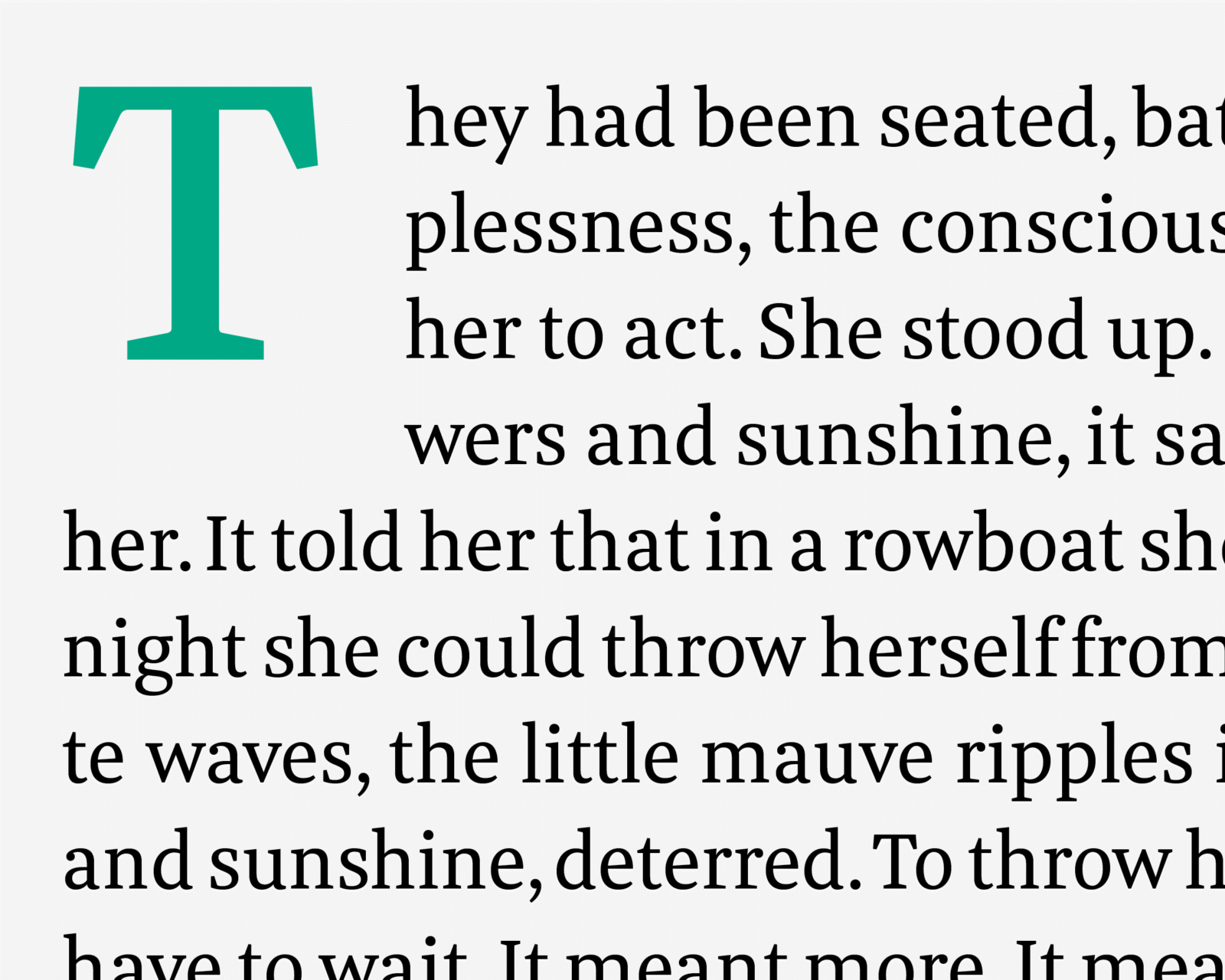
Meret
A straightforward typeface for newspapers and so much more. At home in tight columns and dense leading, it is another monster for text!?
Meret is a straightforward typeface for newspapers and so much more. At home in tight columns and dense leading, it is another monster for text. Long after other typefaces have gone home, Meret will roll up its sleeves and set word after word, line after line and column after column.
Where Pensum Pro mixes the broad nib with the brush, Meret’s refined shapes balance the broad nib with the pointed pen. The result: a typeface that is at once sturdy and refined. Its wide range of eight weights include four text focussed weights (Light, Regular, Book, Medium) and give enough variety for complex editorial typography. Vivid display styles and unpretentious Italics give the typeface flexibility for serious, frank and modern typography.
For Meret, a typeface fine-tuned to contemporary typographic requirements, one set of figures is not enough! Meret’s almost serif-less figures come in five styles, each with matching tabulars. For tiny text sizes, the default figures are drawn slightly taller than the x-height; making them strong enough for tricky conditions and unobtrusive enough that they do not distract. And, of course, there are also lining figures and — for romantics — classic oldstyle figures. As it’s a TypeMates font, there are also small cap figures and superiors.
With more than a thousand glyphs and lots of OpenType features, Meret can fulfil every typographic need. For lovers of book typography, the small caps are wider than the caps and you will find punctuation in case and small-cap sensitive variations. Meret’s broad language encoding is a TypeMates standard and gives a wide range of flexibility for Latin language support.